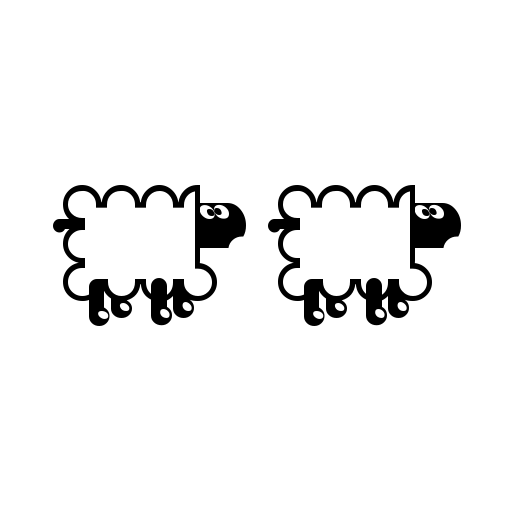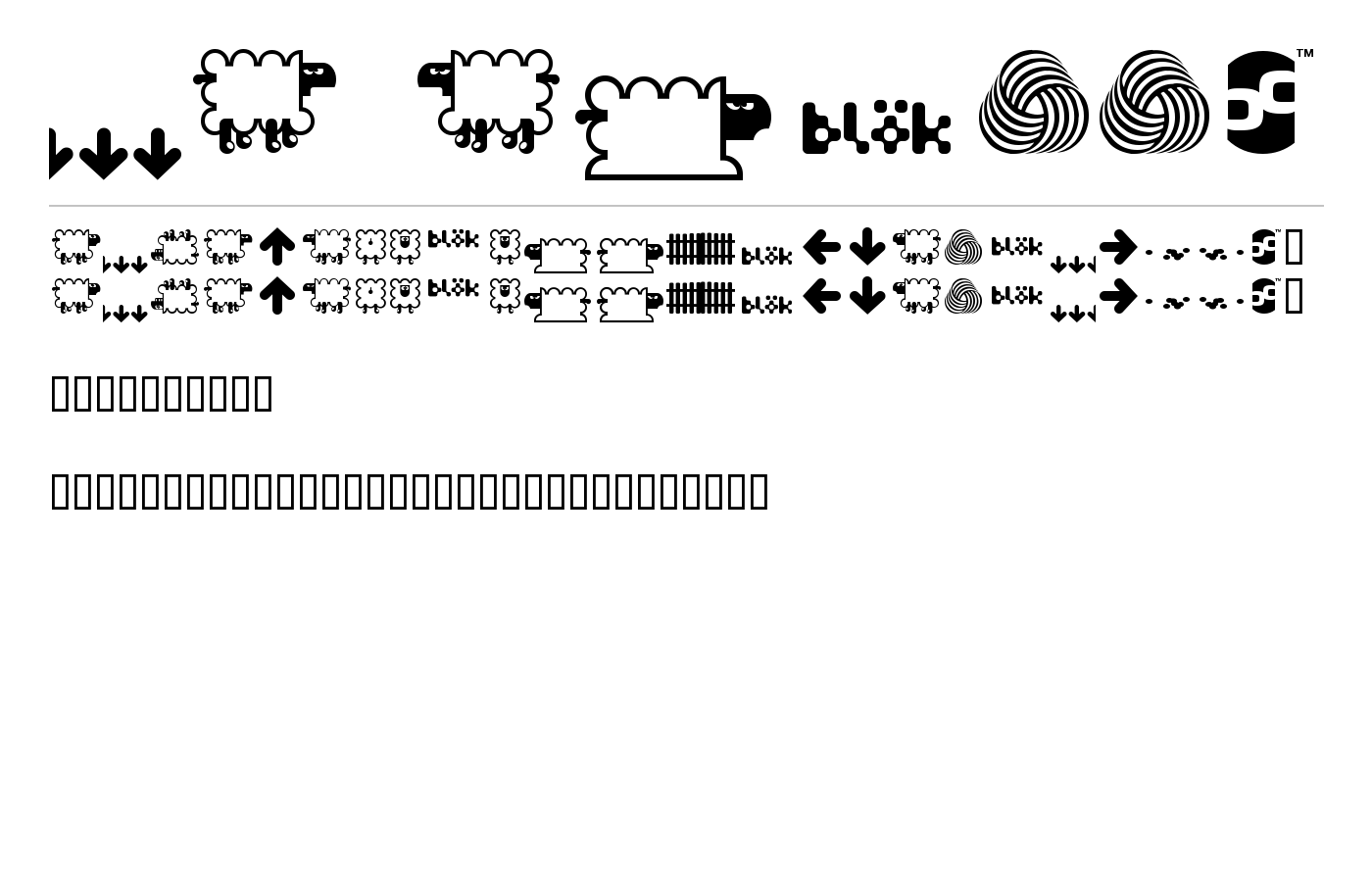
BD Flossy is a playful and bold display font characterized by its thick, rounded shapes and whimsical, almost cartoon-like design elements. Its unique glyphs, including quirky shapes resembling sheep and yarn, give it a fun and approachable personality, making it perfect for creative branding, children’s materials, and lighthearted editorial projects. This font works best when used in headlines or logos that seek to convey friendliness and charm.
BD Flossy Font